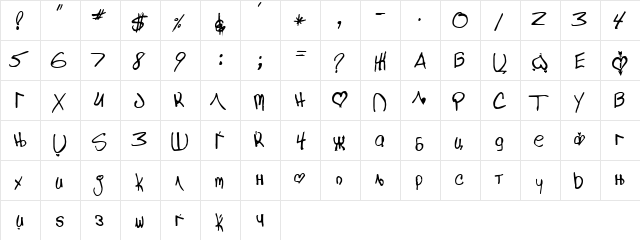
X_Love Thin
Design Context for X_Love Typeface
X_Love is a composed and adaptable typeface that performs quietly and consistently across a wide range of design contexts. The delicate stroke weight brings airiness and refinement to layouts.